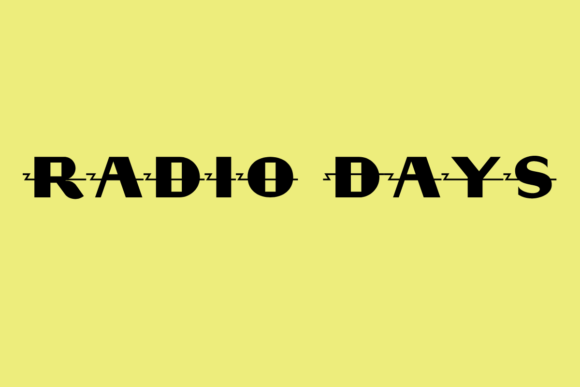
Radio Days, Vintage Broadcast-Inspired Display Font
Radio Days is a decorative display font crafted to evoke the classic look of 1930s radio signage — with stylized, vintage‑era letterforms and a distinctive retro‑electric energy. Its design pays homage to early radio‑logo typography, giving any text a nostalgic, old‑school character that suits posters, merch, branding, signage, or themed graphics.
- Retro‑style posters, flyers, or event graphics
- Vintage‑inspired T‑shirts, mugs, tote bags, stickers, and merch
- Logos, labels, signage, or packaging with an Art‑Deco or 1930s radio vibe
- Stickers, decals, or vinyl‑cut designs using cutting machines or sublimation workflows
- Digital graphics, social‑media visuals, web headers, or print ads with strong nostalgic character
Radio Days gives your designs a timeless, nostalgic feel with its authentic retro‑era aesthetic. Its distinctive vintage character makes it particularly suited for projects that aim for a mid‑20th‑century or Art‑Deco vibe — perfect for posters, packaging, branding, or merch. As a free download font, it offers great value for indie creators, small shops, and print‑on‑demand sellers who want a unique look without extra cost.
| Feature | Radio Days | Generic Modern Display Font A | Generic Retro Display Font B |
| Style / Vibe | Vintage‑radio / 1930s‑era retro / Art‑Deco display | Modern clean sans‑serif display | Retro/vintage look but less stylized |
| Best Use Case | Vintage posters, merch, branding, signage, retro packaging | Modern labels, UI, clean branding, minimal packaging | Simple retro graphics, casual posters, basic nostalgic branding |